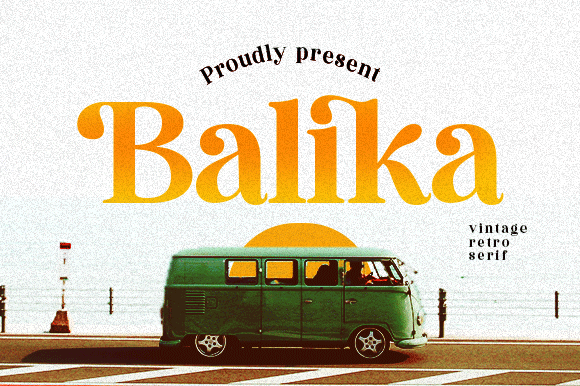
Prepare yourself to be mesmerized by Balika, the captivating serif font that exudes boldness, trendiness, and the allure of thick letterforms. This font is a versatile masterpiece, seamlessly adapting to a myriad of projects, from modern and striking designs to nostalgic retro-vintage concepts. Unleash your creativity with Balika and elevate your branding, logos, crafting endeavors, and sticker creations. Explore the world of sublimation, crafting exquisite wedding invitations, and countless other projects, all while immersing yourself in the beauty of Balika's characters.
With Balika's PUA encoding, you hold the key to unlocking a treasure trove of glyphs and swashes, empowering you to effortlessly inject a touch of elegance into your designs. Experience the boundless potential of Balika, a font that ignites the imagination and fuels your creative spirit. Embrace the allure of Balika today and embark on a journey of artistic expression like never before.
Dive into the depths of Balika's charm and unlock a world of possibilities. Let your imagination soar as you explore the endless applications of this versatile font. From business books that demand attention to logos that exude confidence, Balika is your steadfast companion, guiding you towards creative triumph. Craft stunning stickers that capture the essence of joy and create sublimation designs that radiate brilliance. Embrace the timeless beauty of wedding invitations adorned with Balika's elegant strokes. Let your creativity flourish and witness the transformative power of Balika.
Balika, the serif font of extraordinary allure, awaits your touch. Its bold presence commands attention, while its timeless curves evoke a sense of nostalgia. With Balika, you possess the power to craft designs that speak volumes, leaving an indelible mark on the hearts of your audience. Unleash the boundless creativity within you and let Balika be your guiding light. Experience the magic of Balika today and embark on a creative journey that knows no bounds.